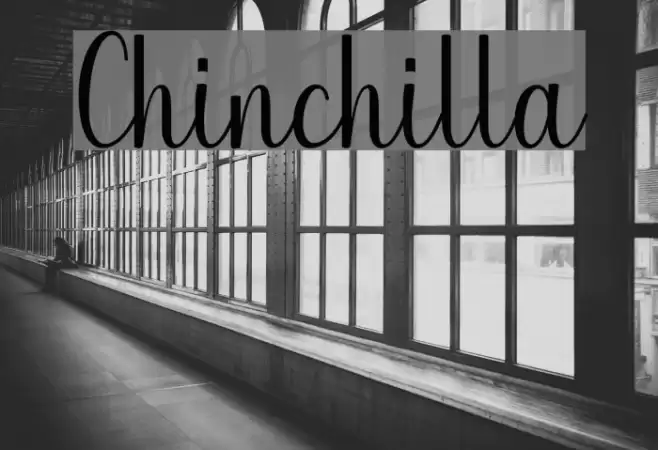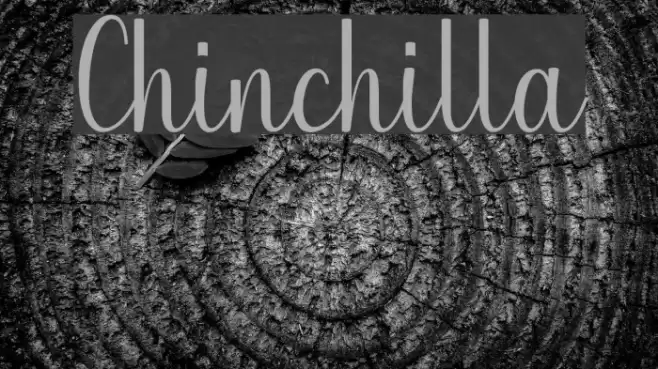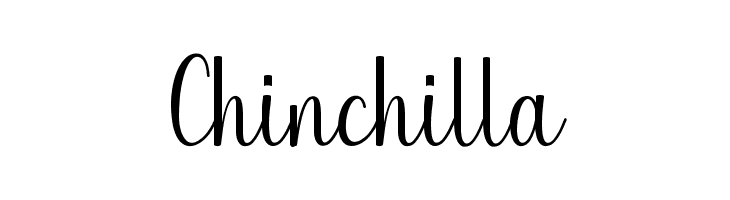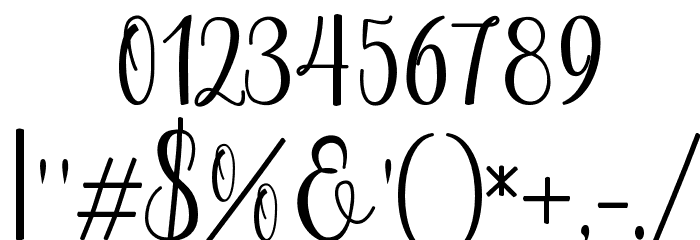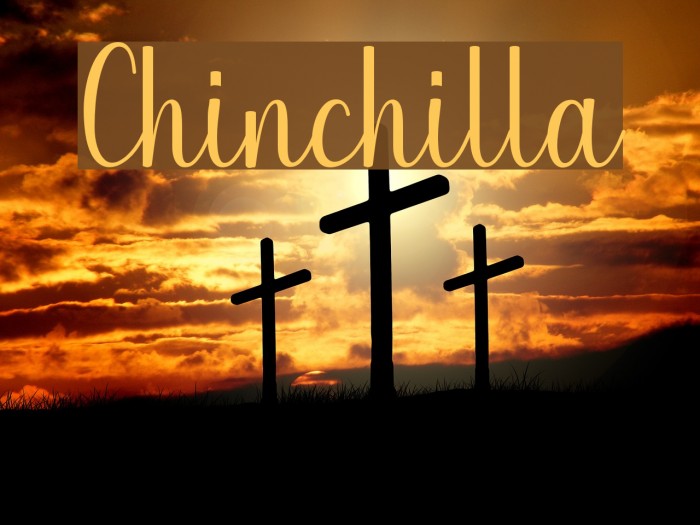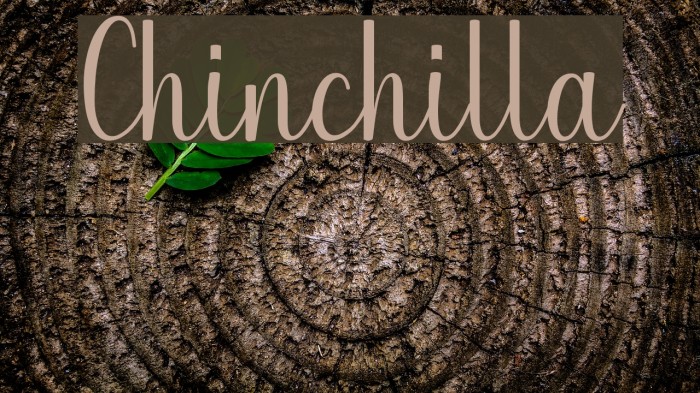
Chinchilla Font
Chinchilla Description
This font features a charming and elegant script style with a handwritten feel. The uppercase letters are gracefully elongated with smooth, flowing curves, while the lowercase letters maintain a consistent and harmonious appearance. The numerals are stylishly crafted to match the overall aesthetic, and the special characters are thoughtfully designed to complement the script. The font's strokes are moderately thick, providing a balanced contrast that enhances readability while maintaining its decorative appeal.
A charming script font with elegant, flowing curves and a handwritten feel from Uncategorized fonts.
- Proposed Projects: Ideal for wedding invitations, greeting cards, branding projects, and elegant packaging designs.
- Overall Style: Elegant
- Use Case: Logos, Invitations, Decorative text